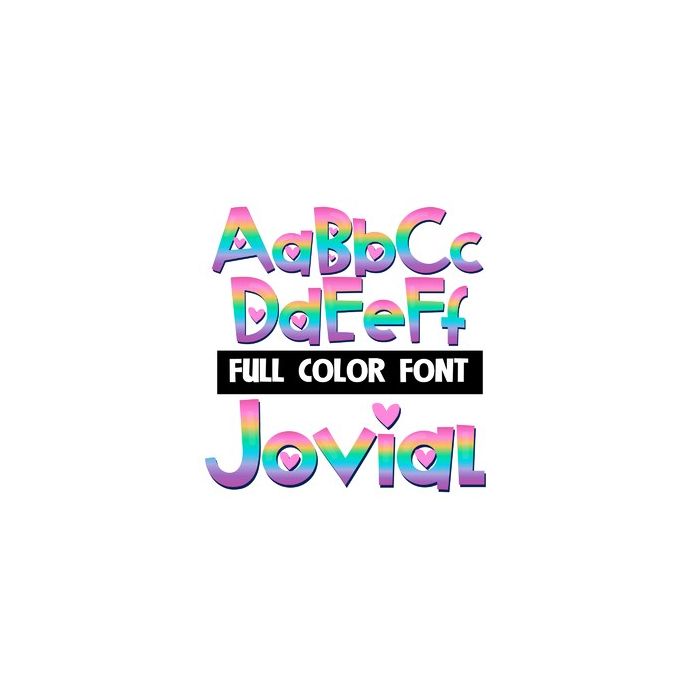
Jovial Color Font
This full-color font features a rainbow of bright colors and hearts. This font works best for titles, displays, posters and more. Please note color fonts will show as black in non compatible programs. This font type is compatible with Silhouette Studio.